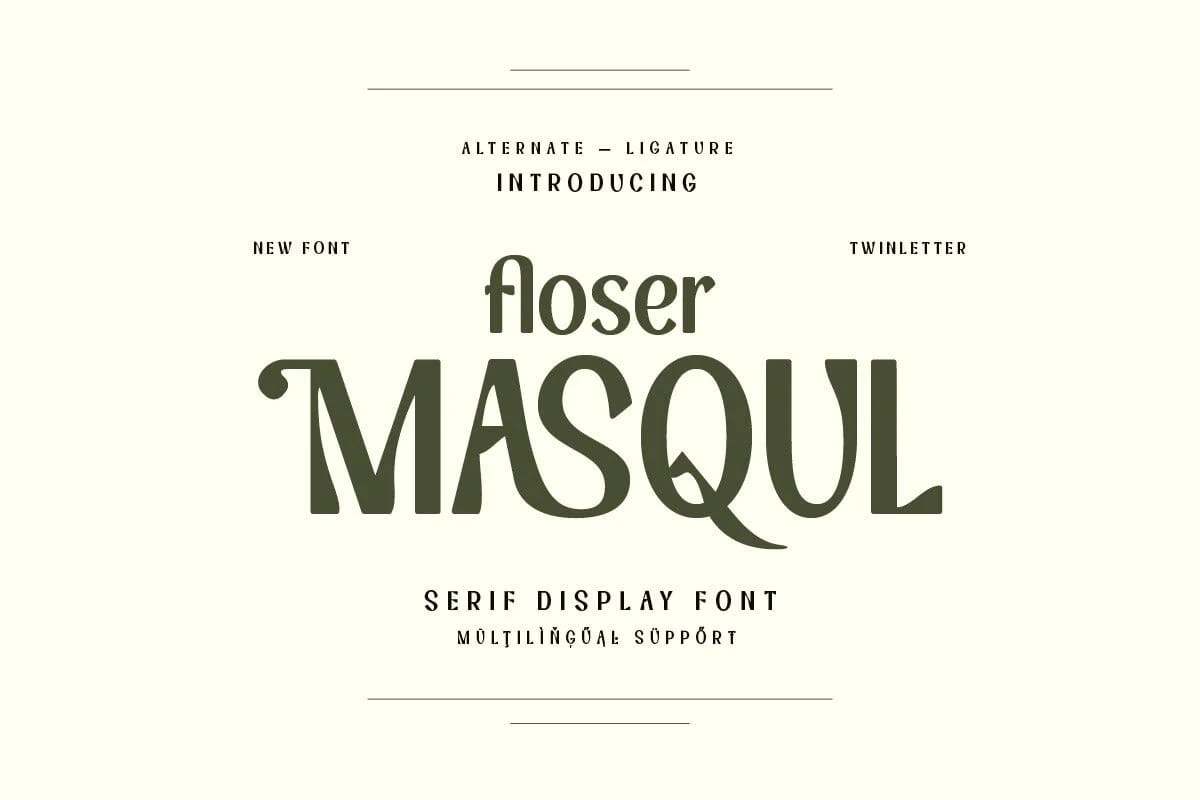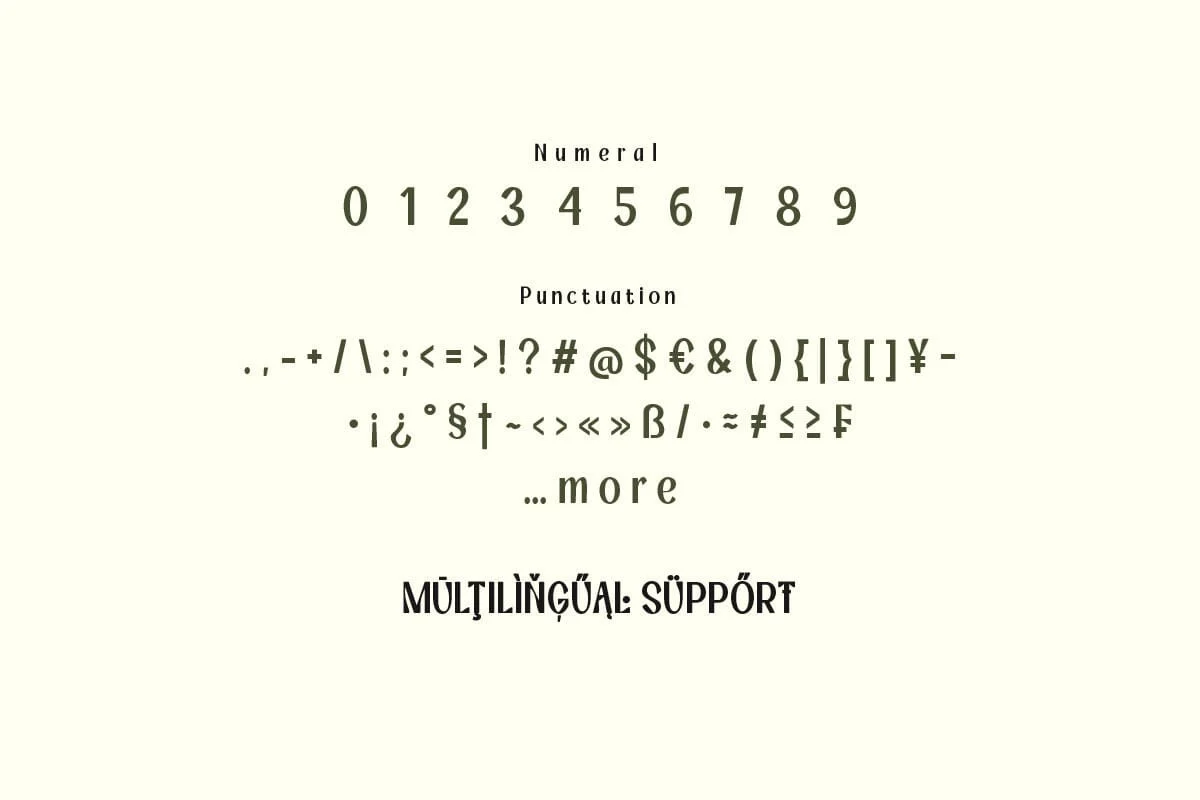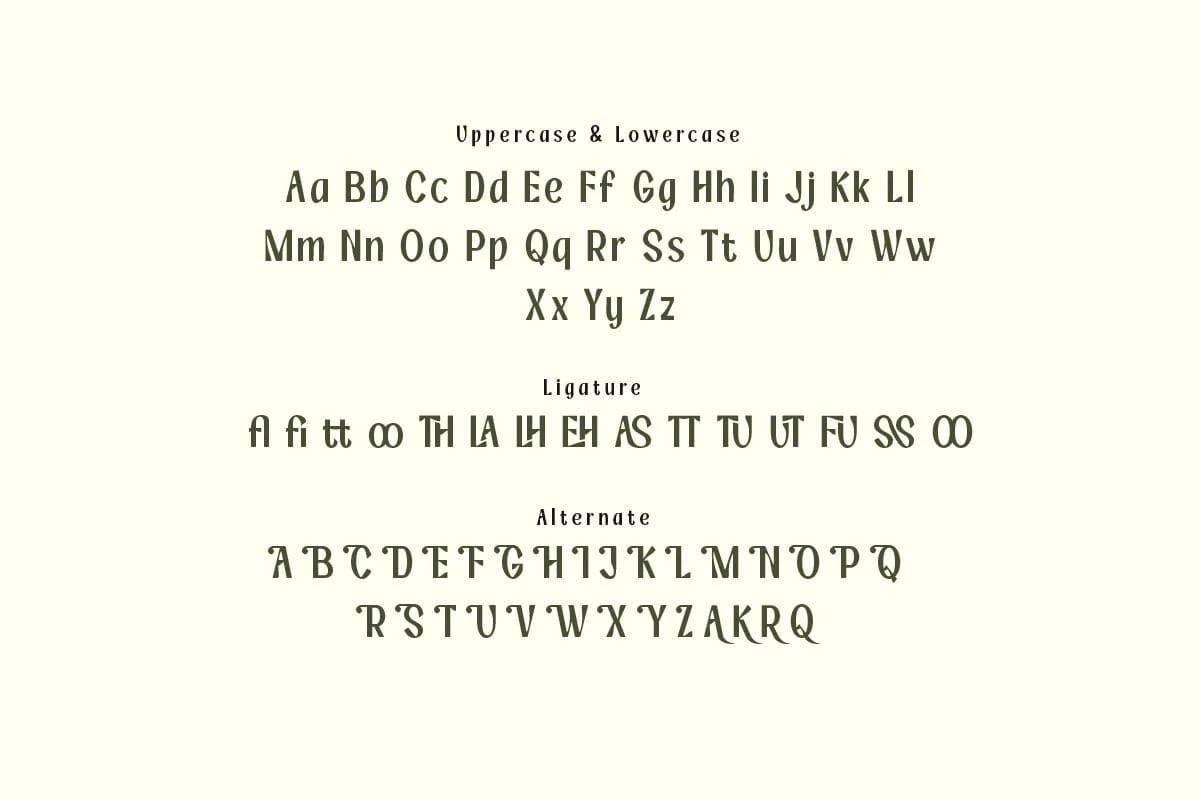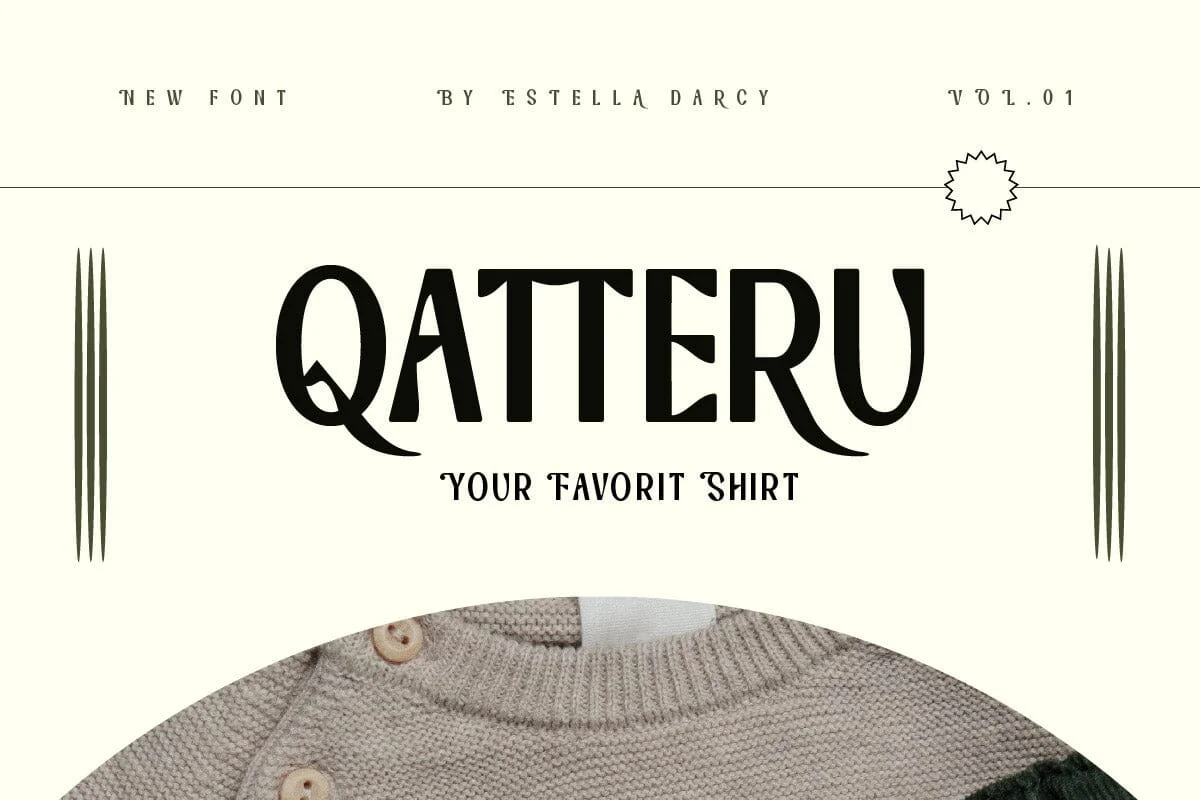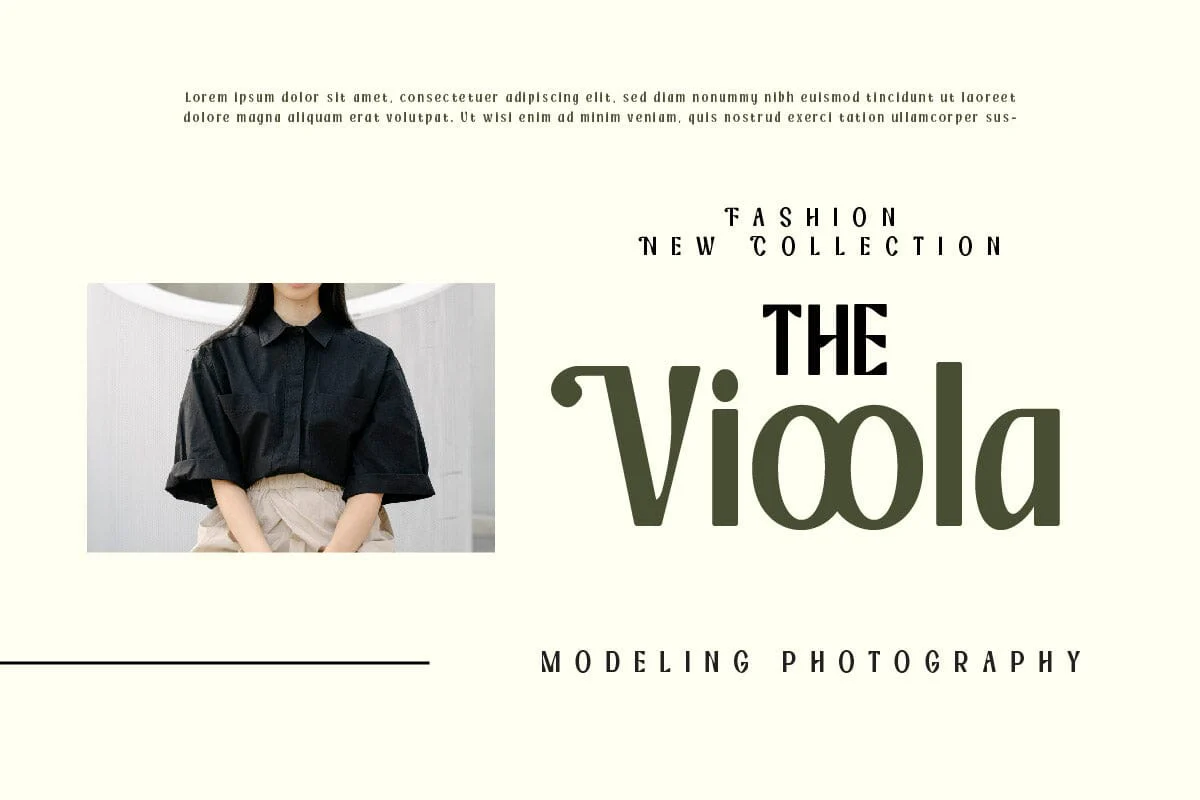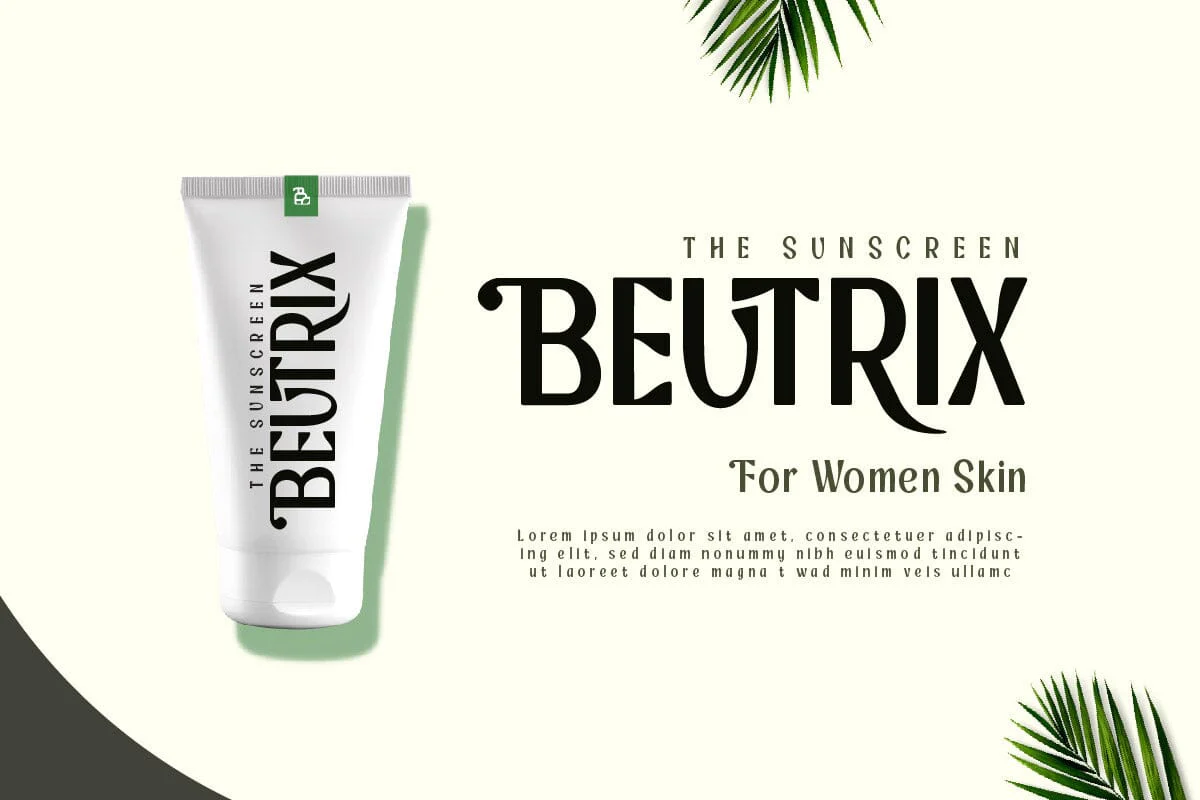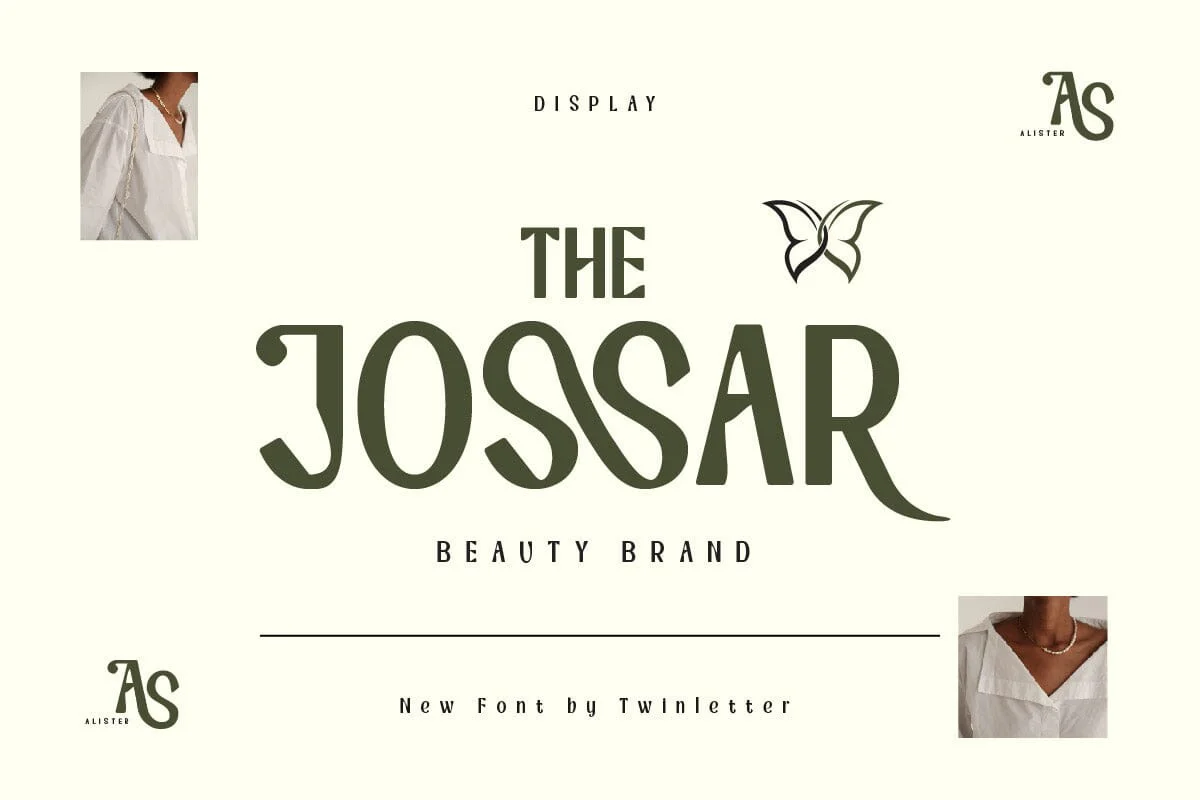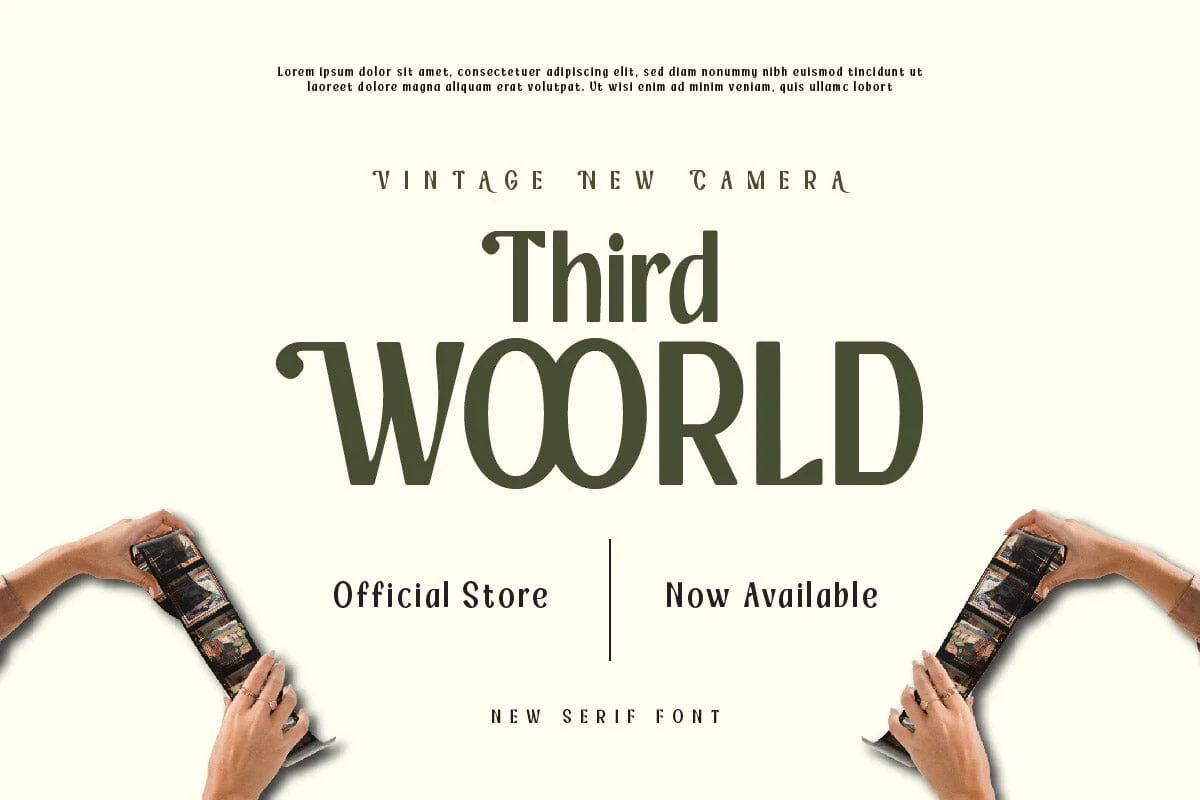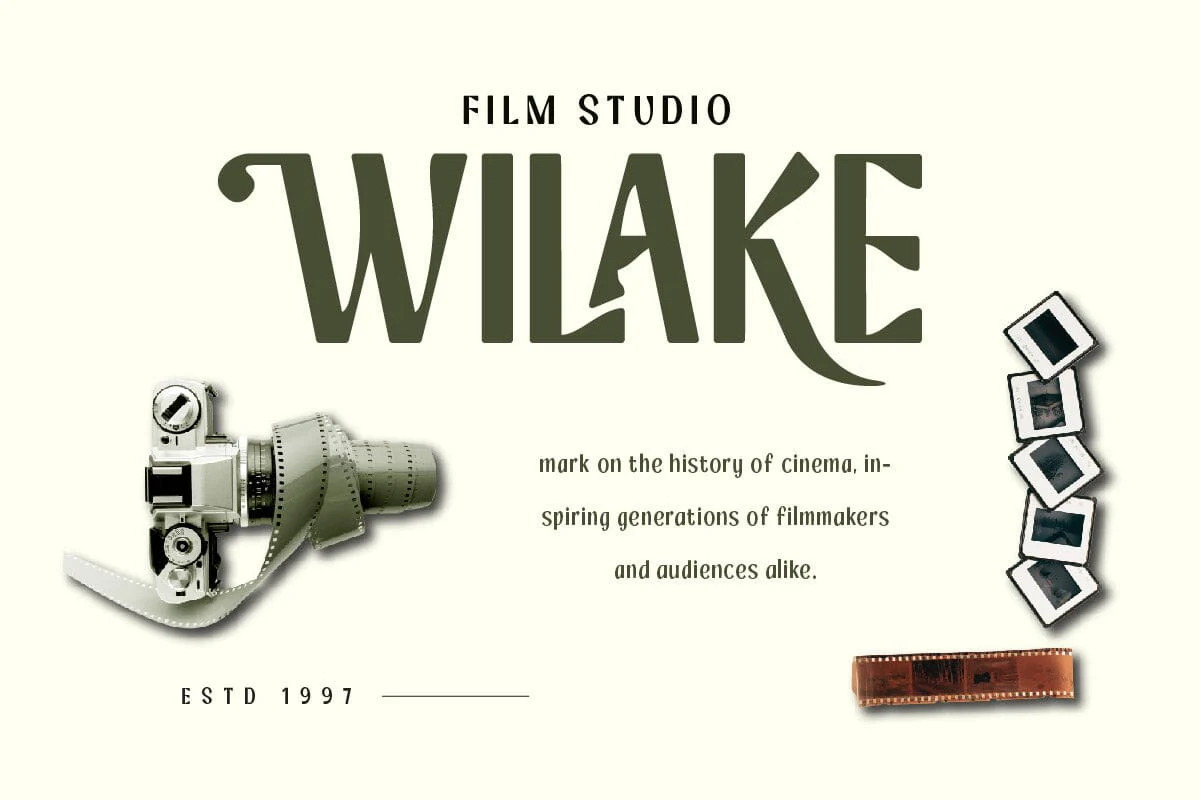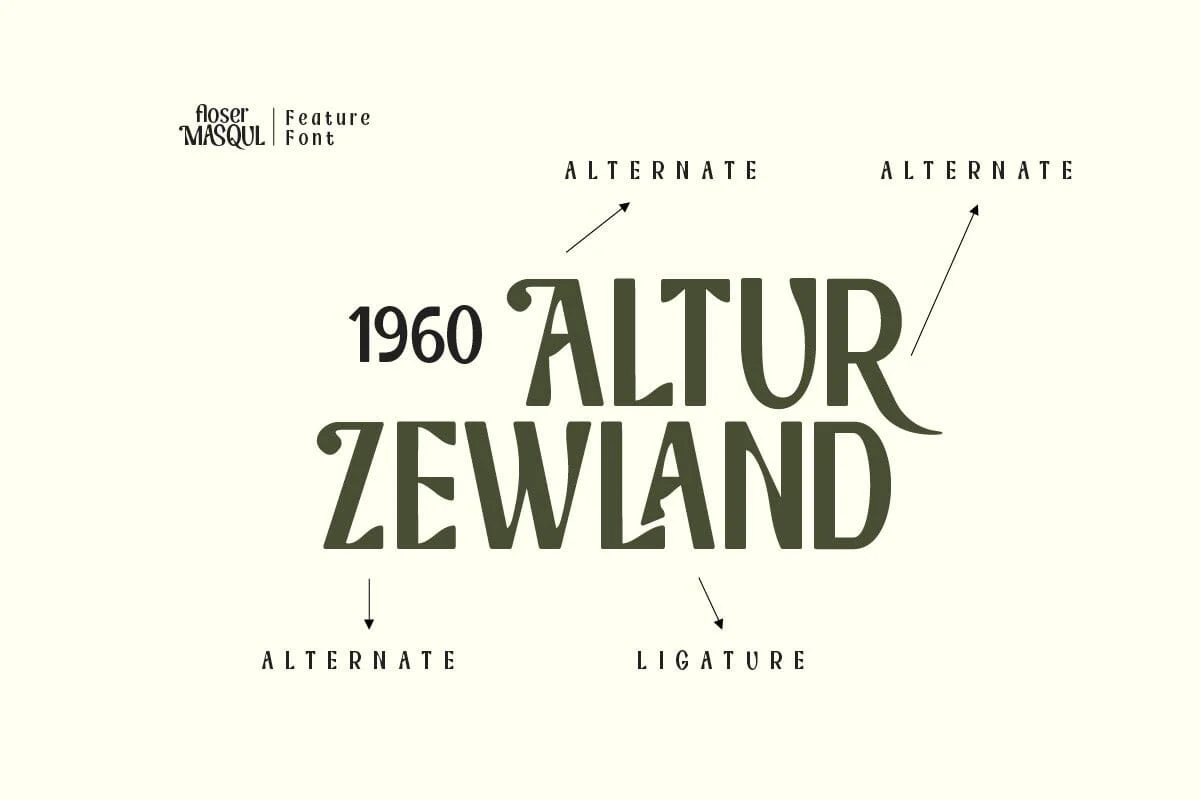
Floser Masqul - Serif Display Font
Floser Masqul is a serif display font that combines classic style with modern design. Its elegant serifs and balanced characters make it a versatile choice for a wide range of designs. But Floser Masqul is more than just a font, it’s a way to convey a sense of elegance and sophistication. With Floser Masqul, your designs will always look their best. It’s perfect for those designs where you need to convey a sense of elegance and sophistication, such as luxury brand logos or high-end invitations. When you use Floser Masqul, you’re not just choosing a font, you’re choosing a lifestyle.